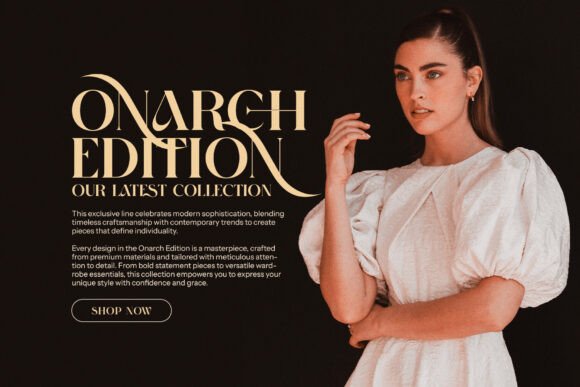
Dave Moris Font
Dave Moris Stylish Display Serif Font is a modern, elegant typeface designed to bring sophistication and creativity to any project. Featuring intricate ligatures and unique alternate characters, this font beautifully blends multiple letters into distinctive, seamless shapes, giving your typography a one-of-a-kind, artistic flair. Its sleek design and refined serifs make it ideal for projects that demand both style and readability.
Perfect for logos, branding, and high-end marketing, Dave Moris adds a touch of luxury to any design. Whether you’re working on a corporate identity, a boutique brand, or a food label, this font delivers a premium look that captures attention and communicates professionalism. Its versatility extends across various applications, from websites and magazines to product packaging and advertisements.
With its bold, stylish presence, Dave Moris Stylish Display Serif Font ensures your designs stand out with impact. The carefully crafted ligatures provide a creative and artistic twist, making it perfect for modern editorial layouts, luxury branding, and sophisticated promotional materials. At the same time, its well-balanced structure ensures clarity and readability, making it suitable for both print and digital use.
From elegant logo designs to high-quality marketing assets, Dave Moris is the ideal font for designers looking to create memorable and refined visual identities. Whether you’re working on fashion, food, or any other creative endeavor, this font adds an element of distinction and timeless elegance that leaves a lasting impression.